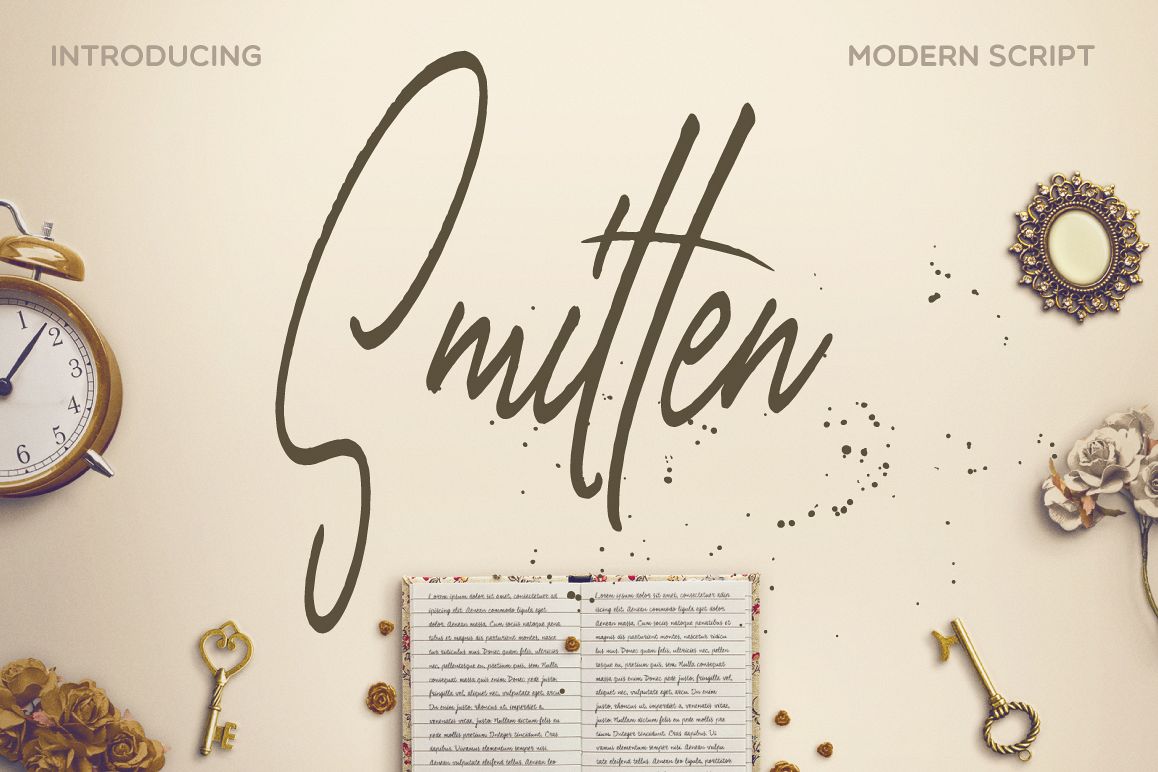
Smitten Script
Smitten Script!
It's hand written modern calligraphy script font.
This fonts are perfect for wedding invitation or for your blog. Also with their help, you can create a logo or beautiful postcard for your lovely. Or just use for your small business.